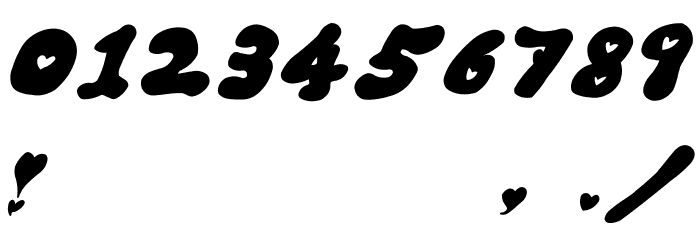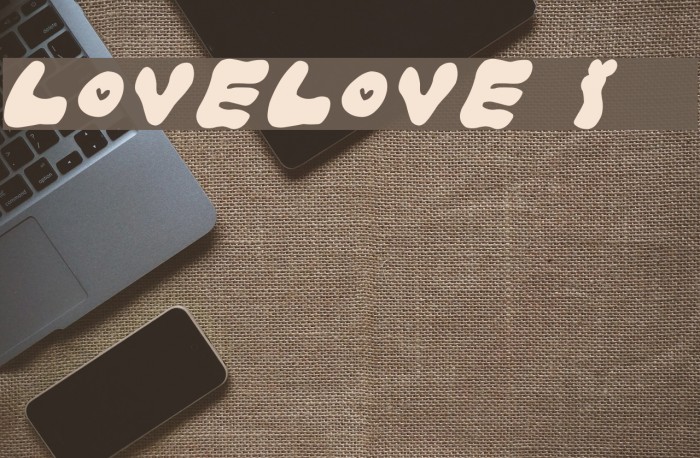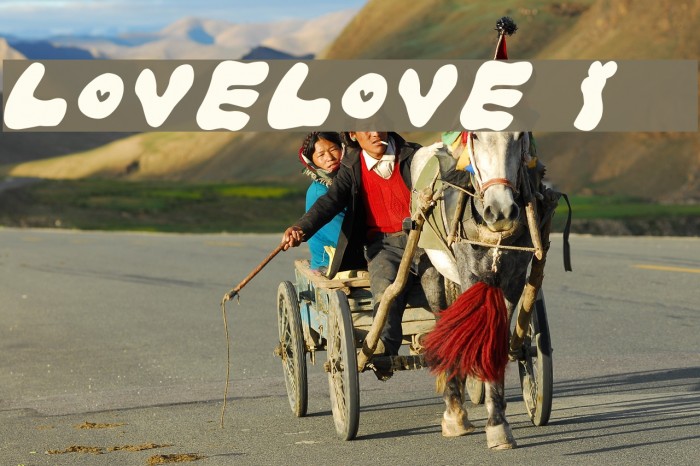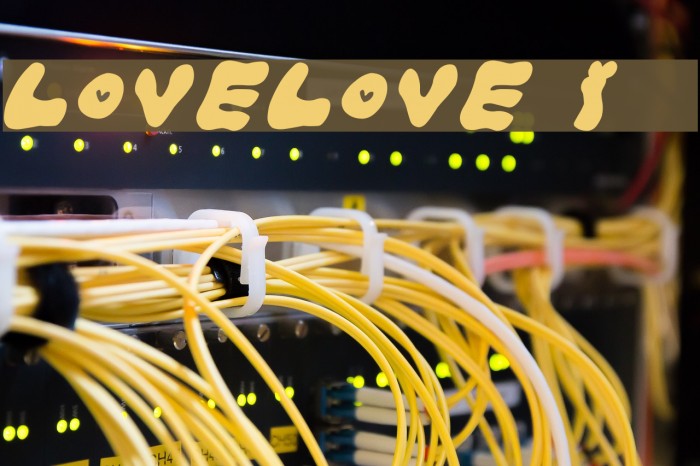
LOVELOVE_Iyan Font
This playful and bold font features a bubbly, rounded style with a hand-drawn appearance. The characters are thick and have a whimsical, almost cartoon-like quality, making them stand out with a strong visual presence. The letters are slightly slanted, adding a dynamic and informal touch. The numbers and special characters maintain the same playful aesthetic, ensuring consistency throughout. This font is perfect for projects that require a fun and engaging look, such as children's books, playful branding, or eye-catching headlines.
A playful, bold, and bubbly font with a hand-drawn style.
- Proposed Projects: Ideal for children's books, playful branding, and eye-catching headlines.
- Overall Style: Playful